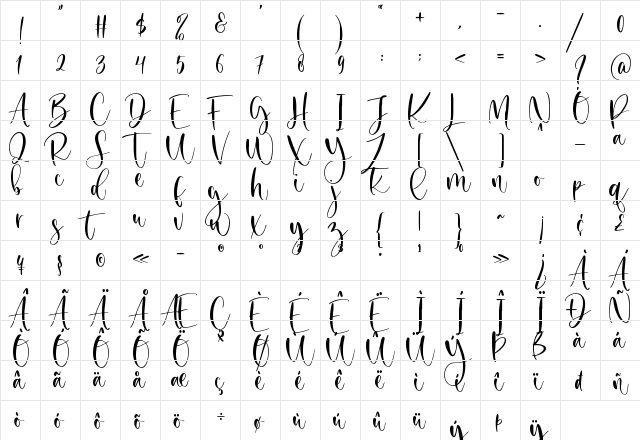
Secret Winter Regular
| Designer | Muhamad Yusron Billah |
Design Context for Secret Winter Typeface
Secret Winter is a composed and adaptable typeface that performs quietly and consistently across a wide range of design contexts.